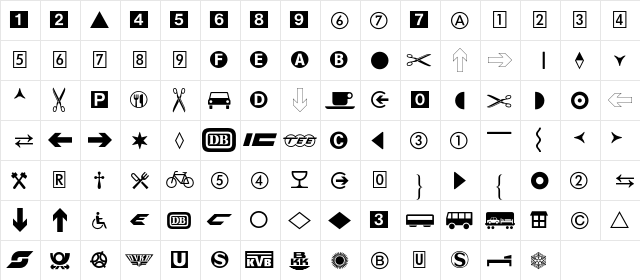
DB Pi Two BQ Regular
Design Context for DB Pi Two BQ Typeface
DB Pi Two BQ takes a measured approach to typography — its balanced proportions and neutral character make it a reliable workhorse for both digital and print work.